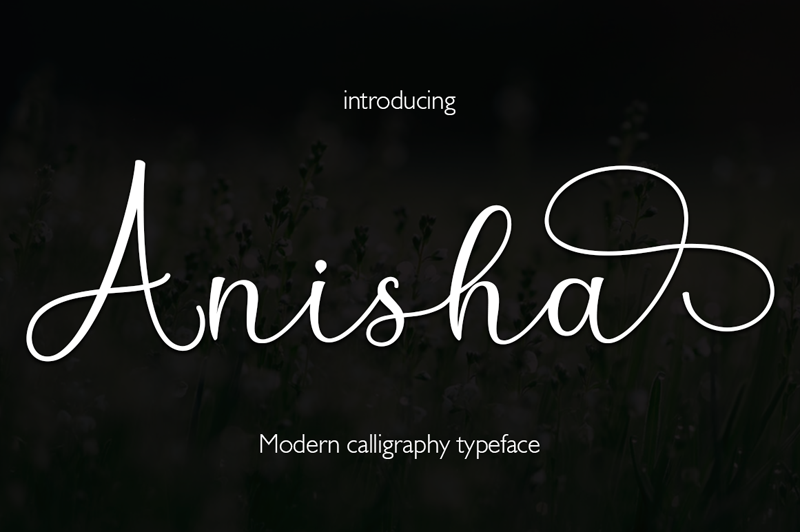
The Anisha is an elegant font with which you can achieve a handwritten-type lettering feeling. Its signature style is perfect for modern graphic design needs. It has a nice flow so its perfect for adding a personal touch to long texts. link to purchase full version and commercial license; https://fontbundles.net/greentype/407037-anisha#gtmList=5>mPos=4 please visit our store for more great font; https://fontbundles.net/greentype Thank you. |